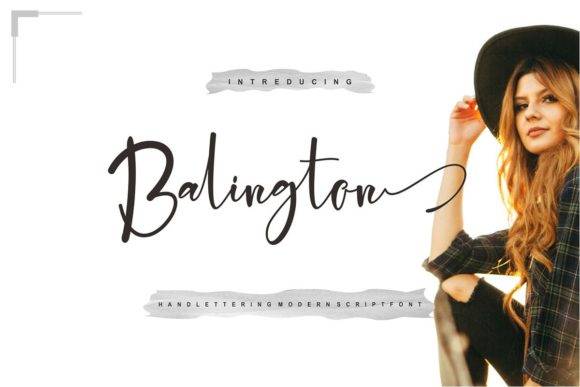
Balington Script Font for Elegant Logos and Branding
Balington Script Font is a calligraphic typeface designed for elegance, sophistication, and modern branding. Its flowing forms, stylish swashes, and smooth transitions make it ideal for luxury logos, boutique packaging, and editorial layouts that demand a timeless, premium touch.
As a font entity, Balington Script supports creative production in both print and digital environments, offering versatility for upscale product designers, marketers, and brand strategists.
- Logo designers creating signature brand marks
- Luxury packaging specialists and stylists
- Wedding and event stationery designers
- Fashion and lifestyle brand creatives
- Print professionals developing premium editorial assets
- Elegant logos and brand identity systems
- Upscale packaging and product tags
- Luxury invitations and stationery suites
- Branded website headers and digital banners
- Editorial magazine covers and features
- Refined script styling for premium aesthetics
- Includes alternates and ligatures for signature designs
- Perfect for luxury markets and elegant branding
Q: What kind of font is Balington Script?
A: Balington Script is a flowing script font designed for elegant and upscale design projects like logos, branding, and print.
Q: Are stylistic alternates or swashes included?
A: Yes, the OTF file includes swashes, ligatures, and stylistic alternates for added elegance.
| Feature | Balington Script Font | Generic Serif Font | Generic Display Font |
| Design Role | Elegant branding and signature identity | Structured readability for text | Bold headlines and visual emphasis |
| Visual Tone | Romantic, upscale, flowing | Classic, formal, reliable | Modern, loud, impactful |
| Customization | Swashes, alternates, ligatures | Limited variation | Some variation, no cursive flow |